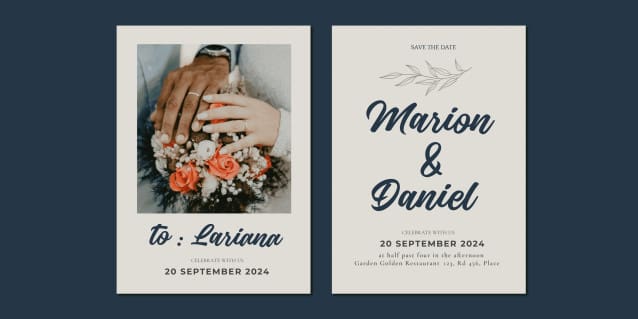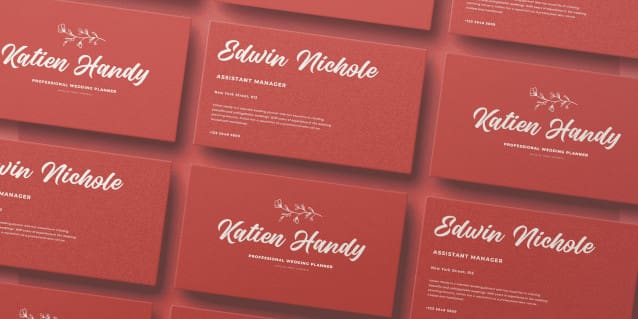
Matisan Script Font
Matisan Script Font, the calligraphic design of Matisan Script is characterized by its bold, yet delicate, brush strokes, imparting a sense of dynamism and motion.
Use one or multiple underscores _ anywhere in a word to make a swash.
Example: Ma_ster Wonder____woman